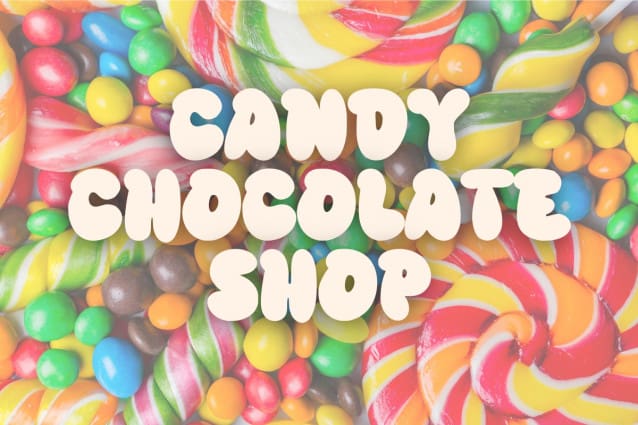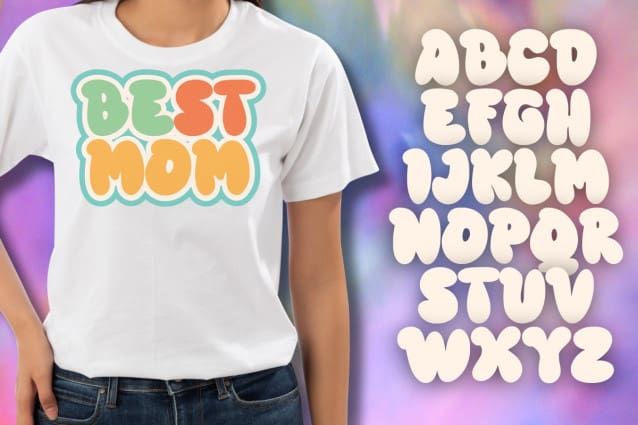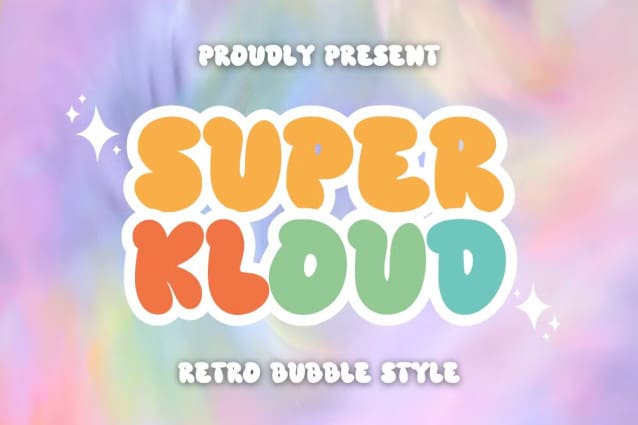
Super Kloud Font
Super Kloud Font – Retro Bubblef Font. A display font inspired by the cute and adorable bubble style. This font is great for various creative project needs such as food logo designs, children’s shirts, women’s shirts, funny stickers, quotes, event posters, flyers, birthday invitations, greeting cards, children’s book covers and many other creative ideas.